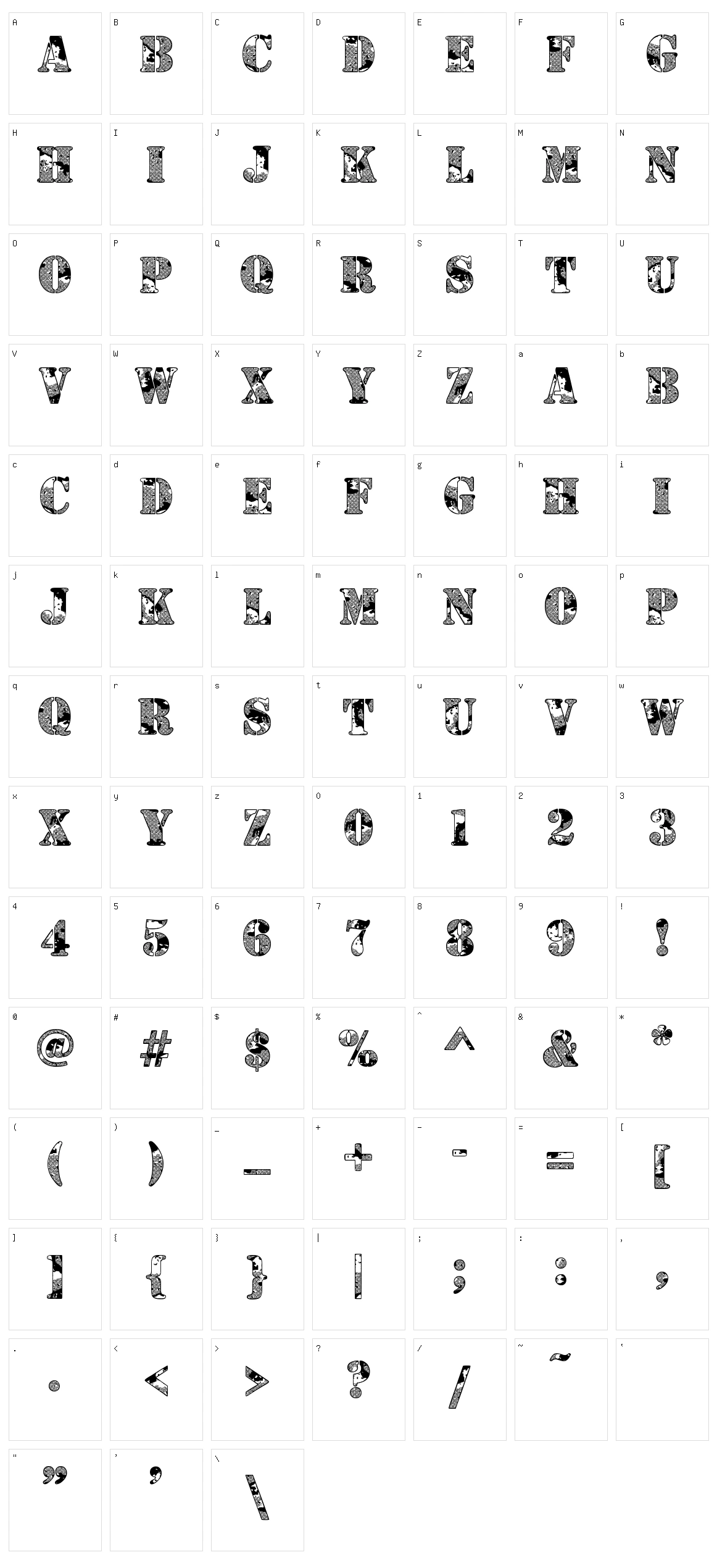
The free font Camouflage is carefully designed by Anthony Robinson, showcasing a thoughtful balance of creativity and usability and falls under the Stencil font style. When you download the ZIP file, it contains only 1382.34 KB of font files, making it lightweight and quick to download. Please review the license details below to understand permitted usage and distribution rights. If license information is not available, we recommend using this font for personal projects only or contacting the author directly for commercial usage permissions.